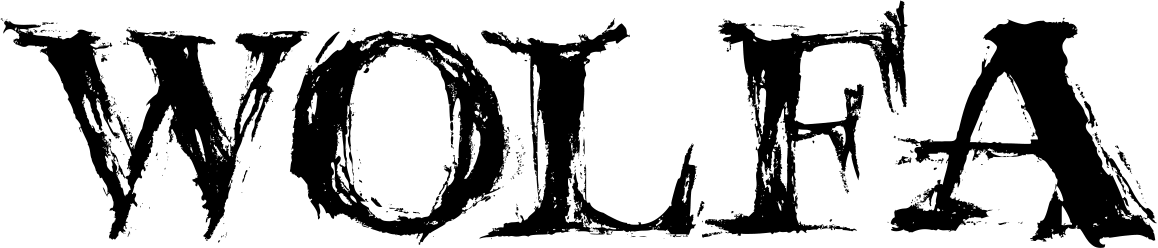
JMH Wolfa Font
With the stunning display of creativity, JMH Wolfa font multiplies the horror spirit with scary letters for vampire and brutal movie posters. This brush font’s vintage and wooden texture allows you to have one of the unique Halloween posters.
This Halloween font is tinctured with dark excitement and does not include lowercase letters, but we promise that your scary flyer will attract your audience with many positive recommendations.